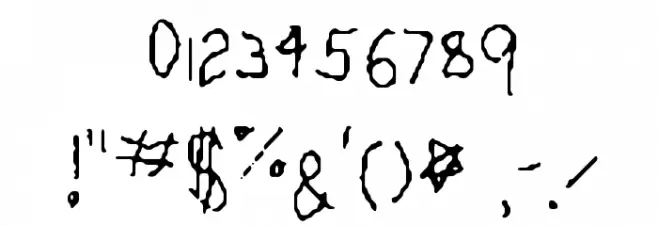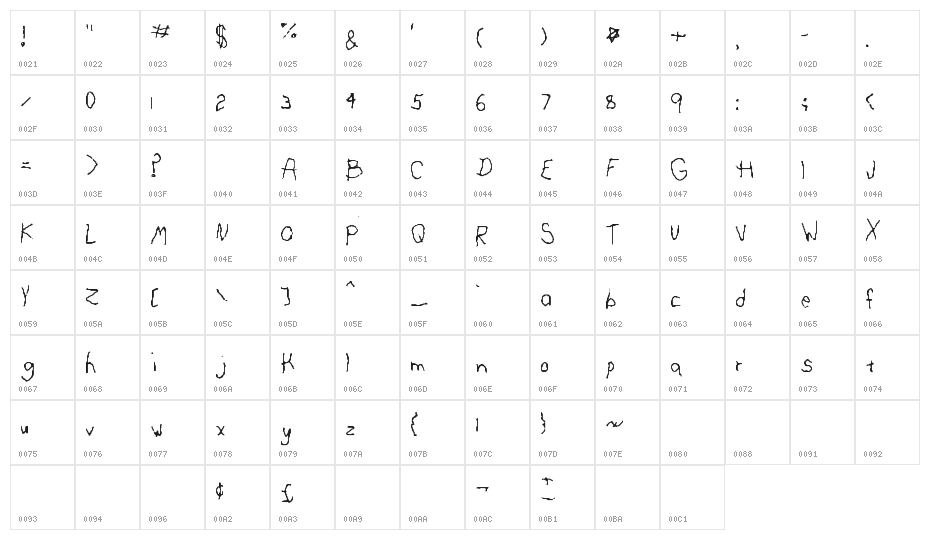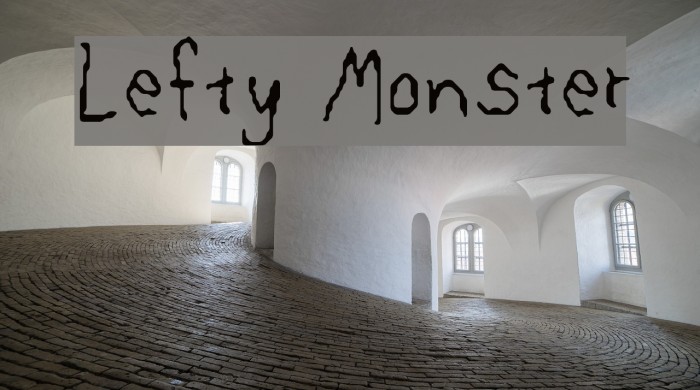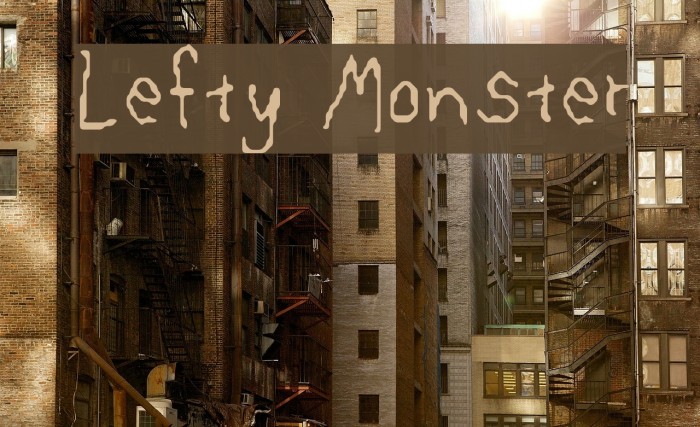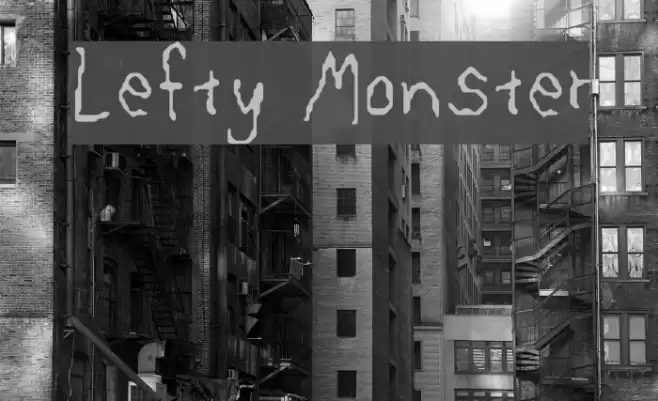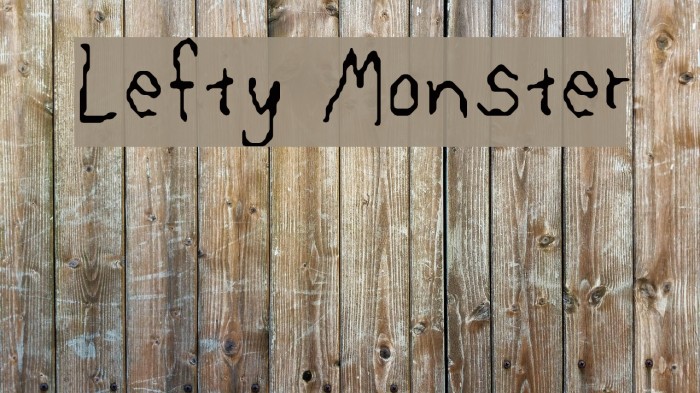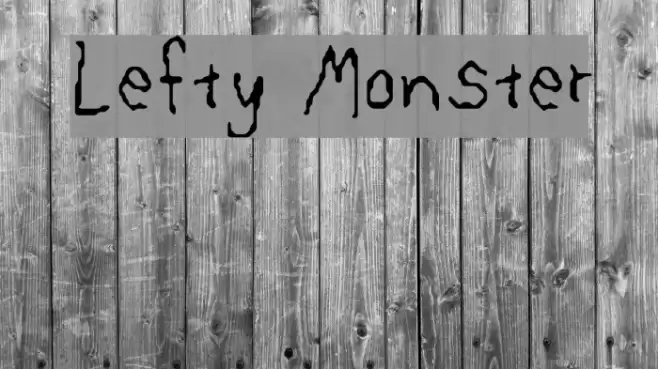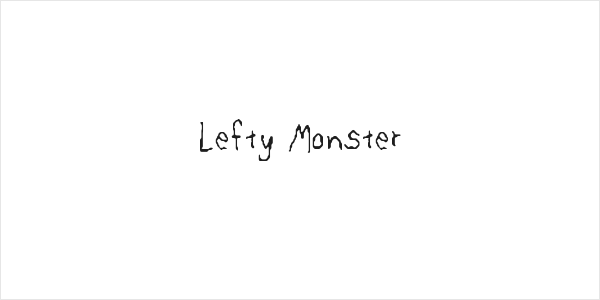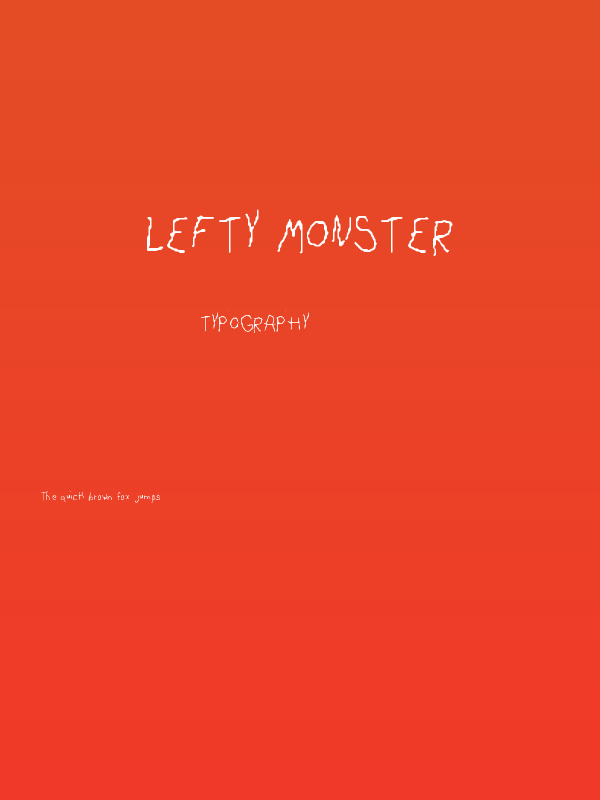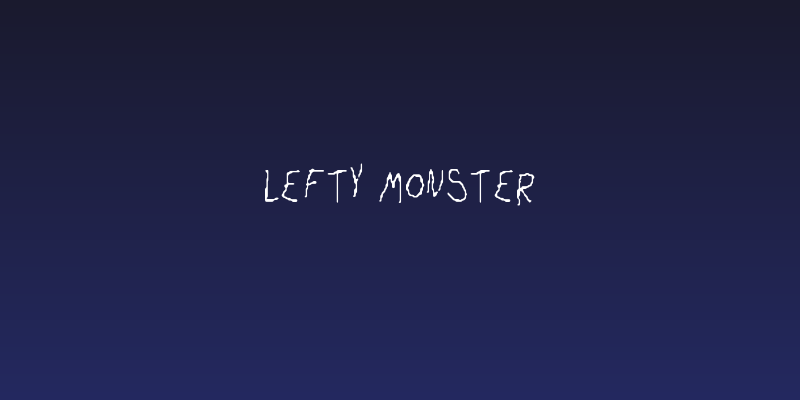
Lefty Monster Font
Lefty Monster Description
This font features a quirky, hand-drawn style that resembles the playful scrawl of a child or a whimsical monster. Each character is uniquely crafted with irregular lines and varying thickness, giving it a lively and animated appearance. The uppercase and lowercase letters maintain a consistent style, with a slightly uneven baseline that adds to its charm. Numbers and special characters follow the same playful design, making the font suitable for creative and informal projects. Its distinctive look is perfect for capturing attention and conveying a sense of fun and creativity.
| Proposed Projects | Ideal for children's books, playful posters, creative branding, and Halloween-themed designs. |